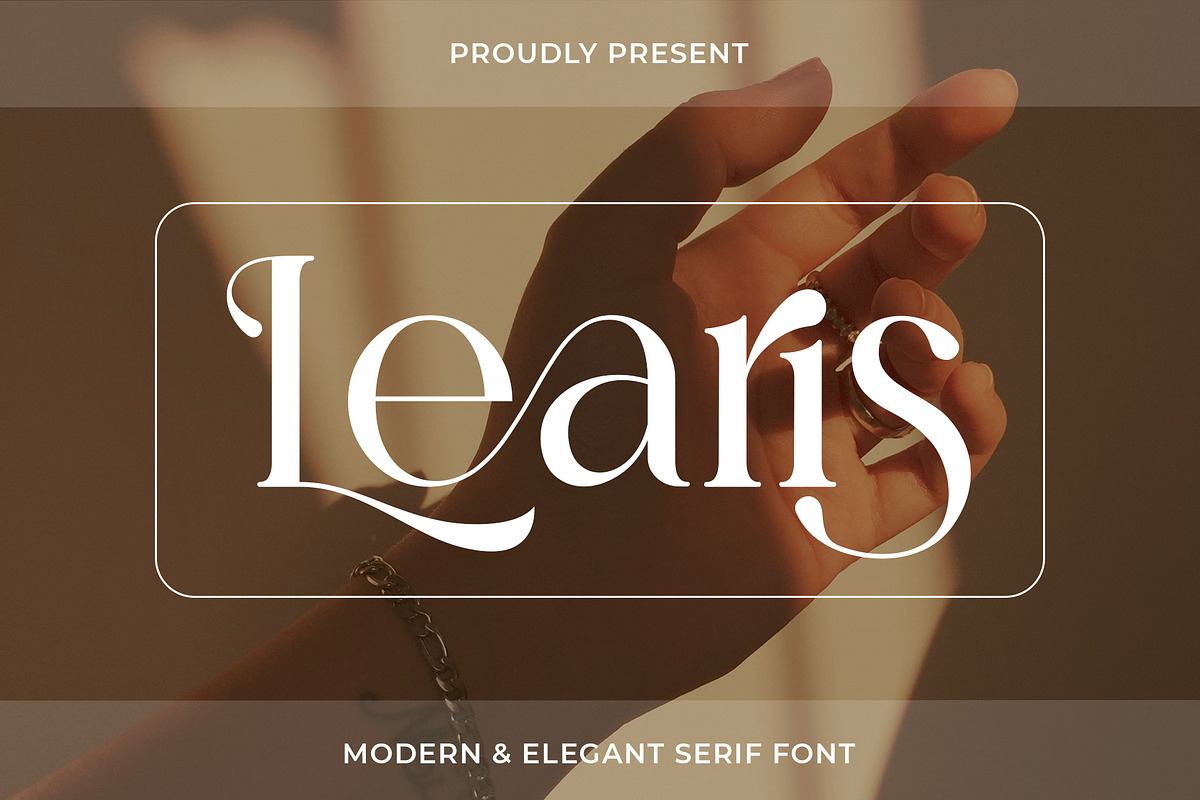
Learis Serif Font Free Download
Learis Serif Font Free Download is a sophisticated and modern serif typeface that combines elegant curves with sharp, clean lines. Perfect for high-end branding, editorial layouts, packaging design, invitations, and fashion-forward projects, Learis offers a refined aesthetic that exudes professionalism and style.
With its balanced letterforms and high contrast strokes, Learis delivers excellent readability while making a strong visual statement. It works beautifully in both headlines and smaller text, offering versatility for print and digital use alike.